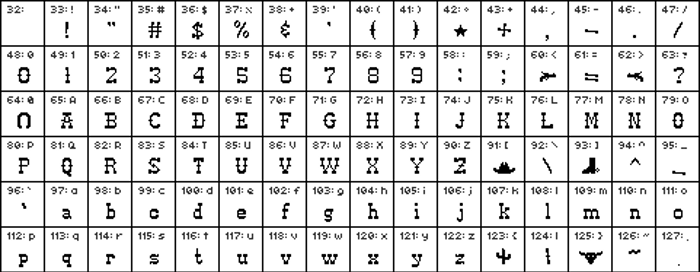
Pixel-Western Font
It was quite a challenge translating Western text into a pixel font since the typeface is quite ornamented. I did have to take a few liberties with the design, but feel that it is pretty accurate overall. Since several of the characters would probably not be used with this font (such a curly brackets and @ sign), I decided to replace them with some Western-theme dingbats. There is a horseshoe, Sheriff's star, cactus, steer head, cowboy hat, boot, and guns. The black-hatted smiley is my own creation and can be found on my deviantART account.
A very good translation of western style to pixel. Love it.